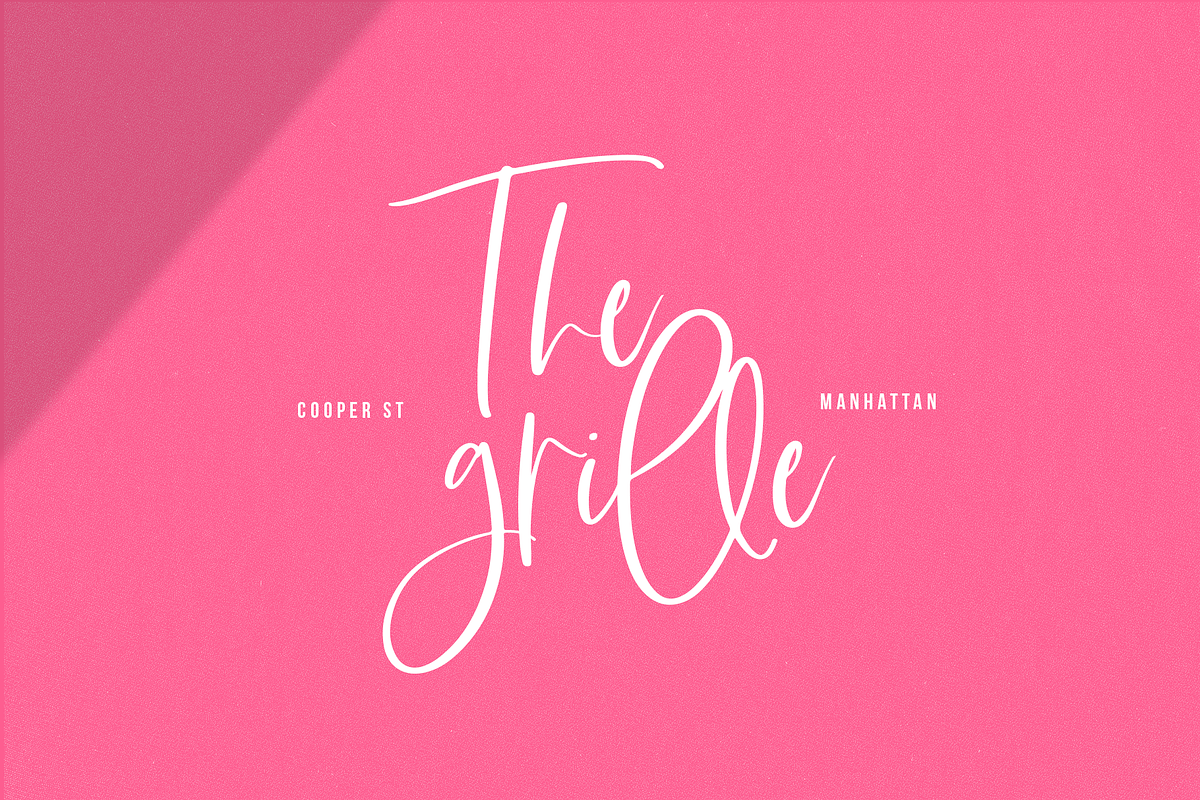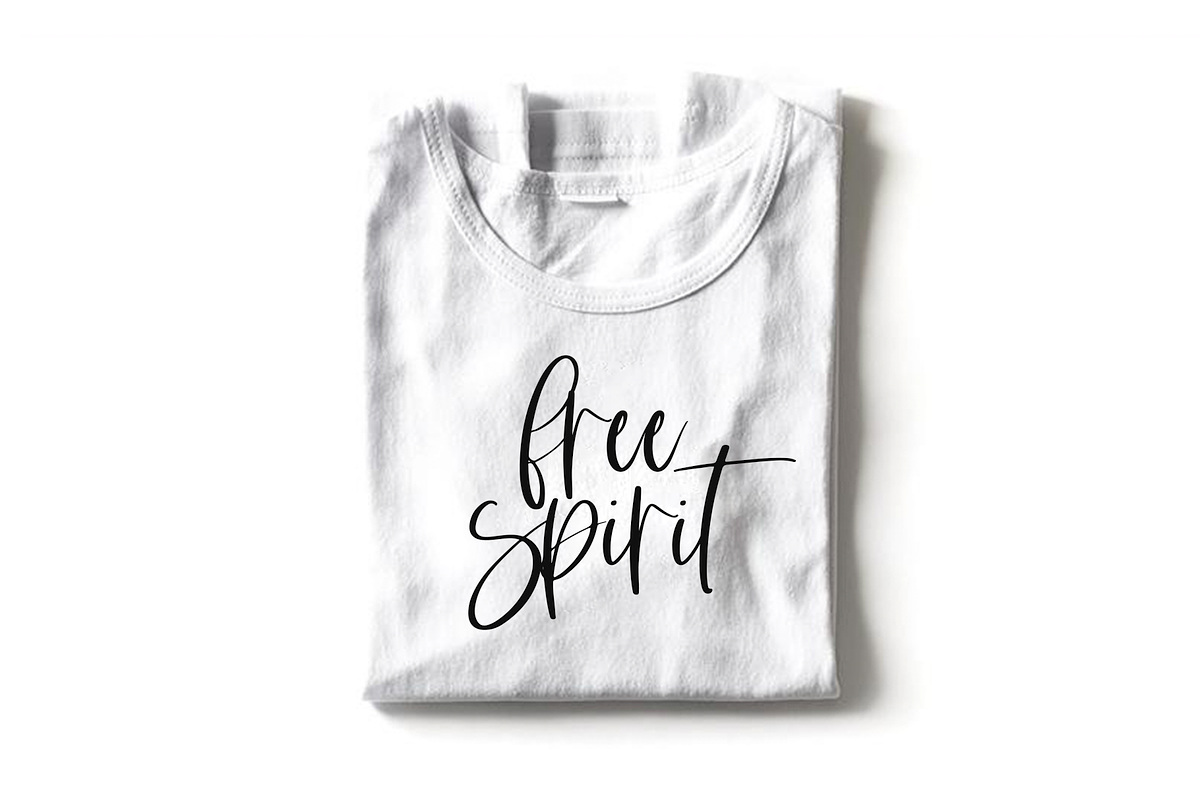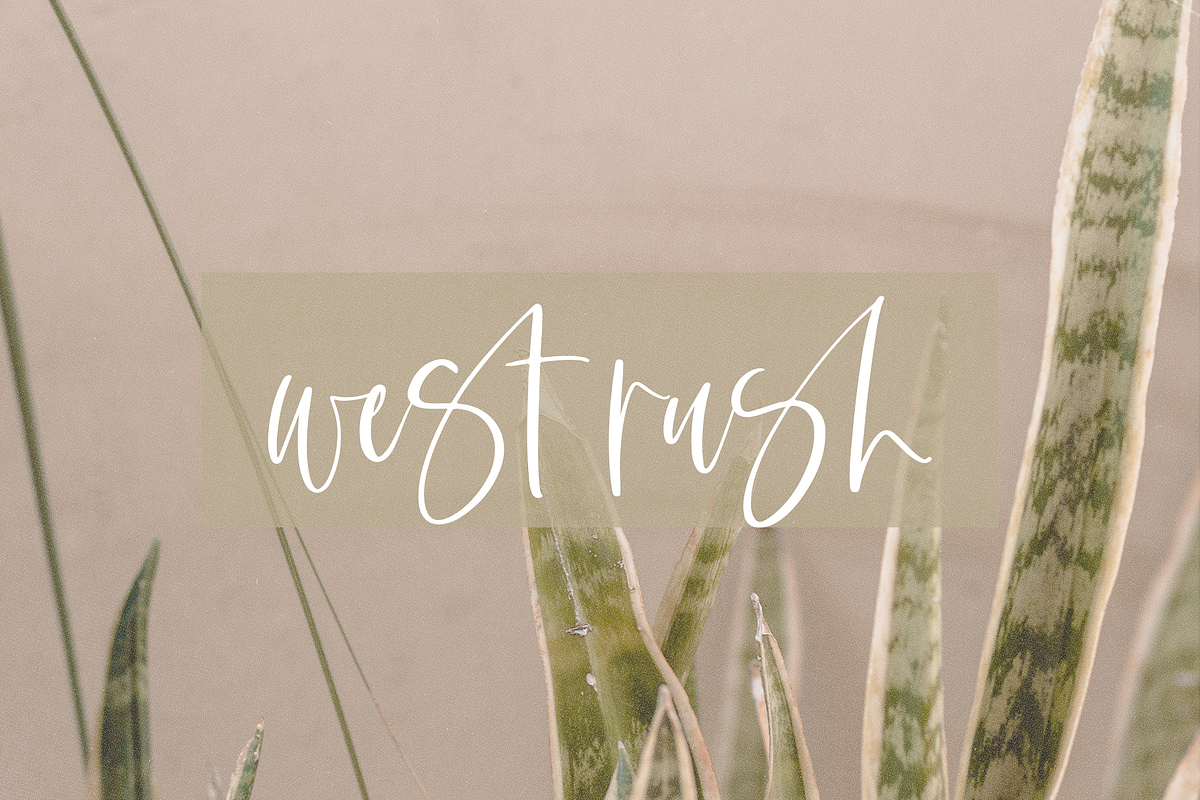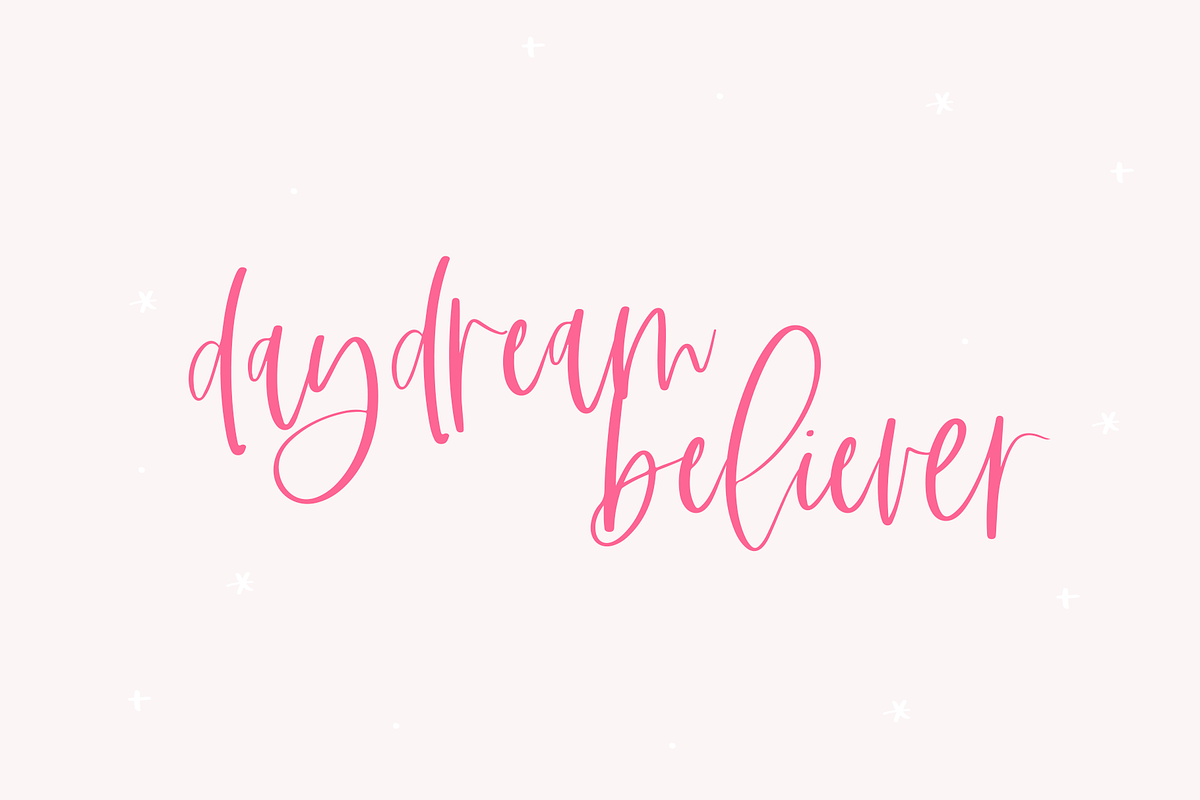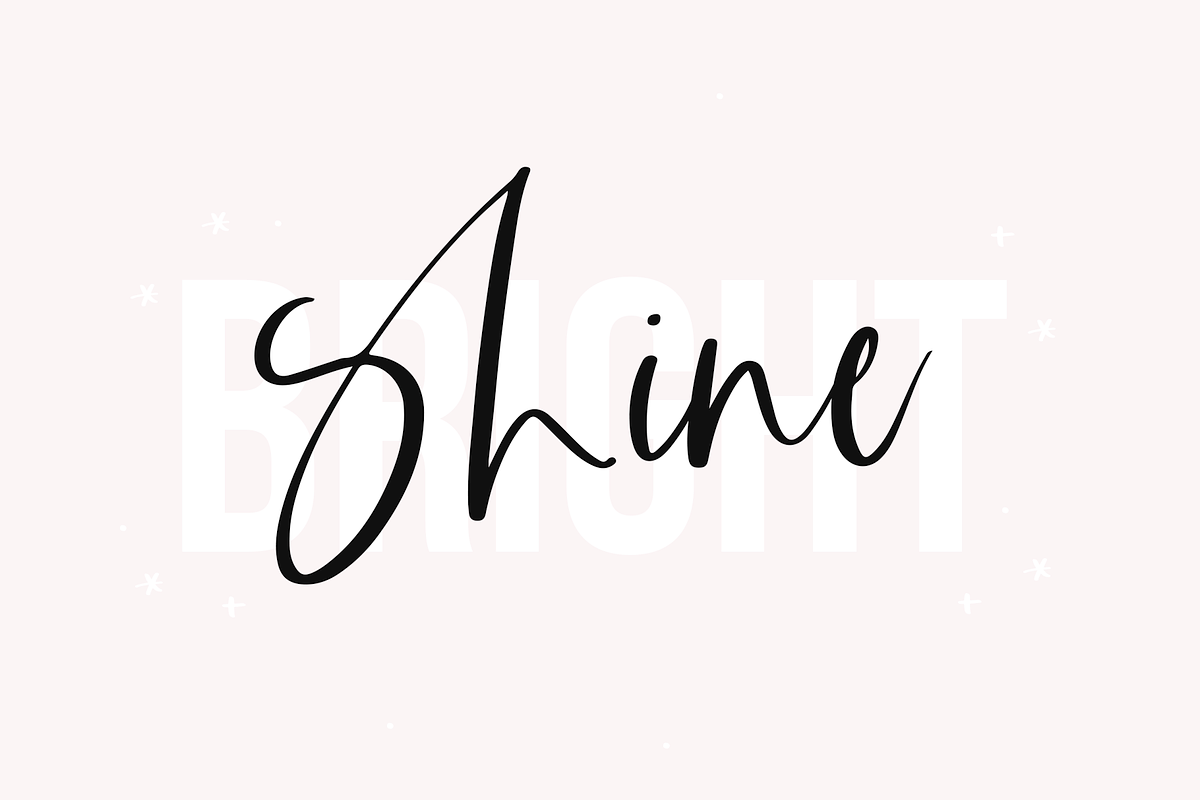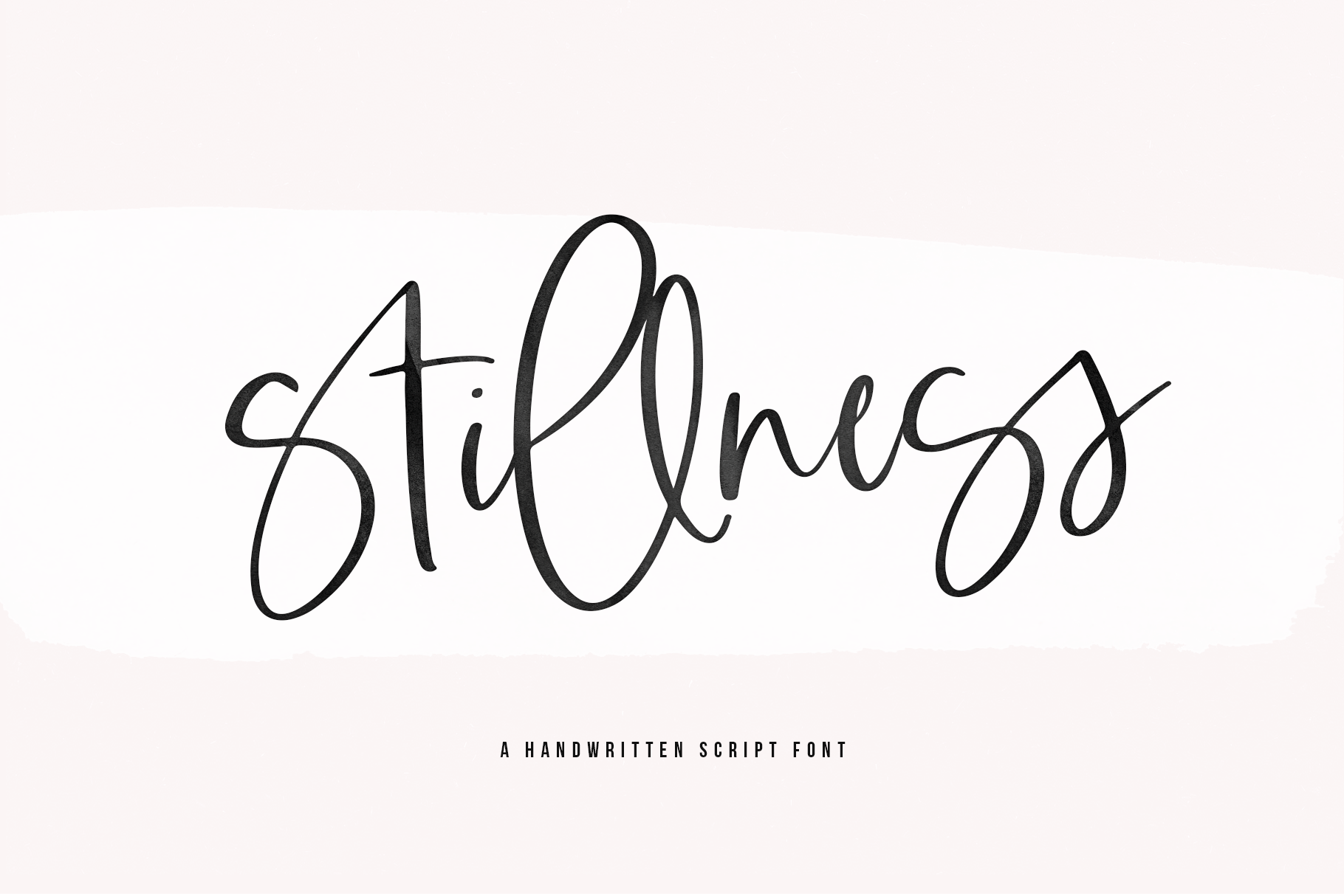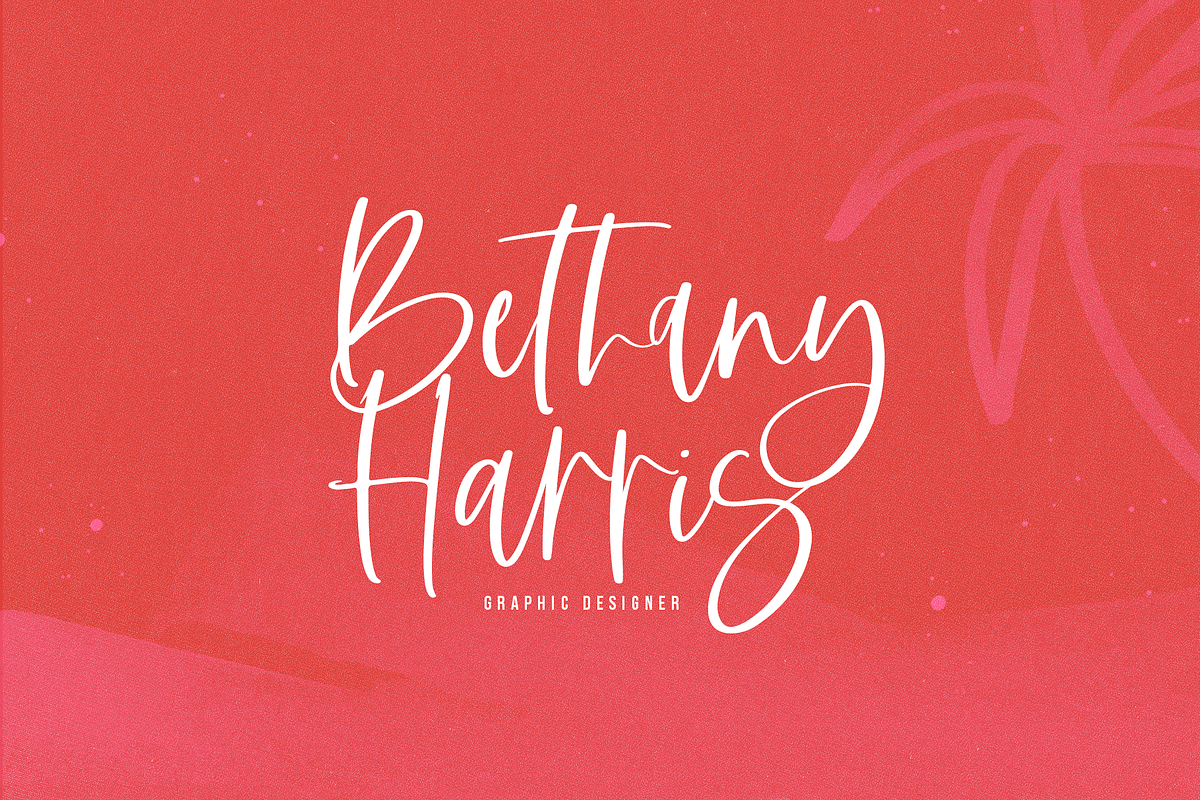
Stillness | Modern Script Font
Stillness is a handwritten script font. It has an authentic modern calligraphy look making it perfect for branding and digital designs.